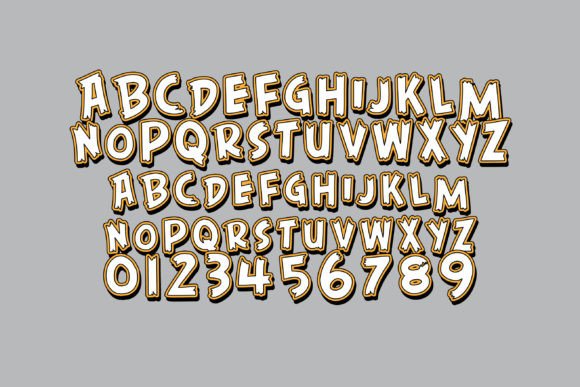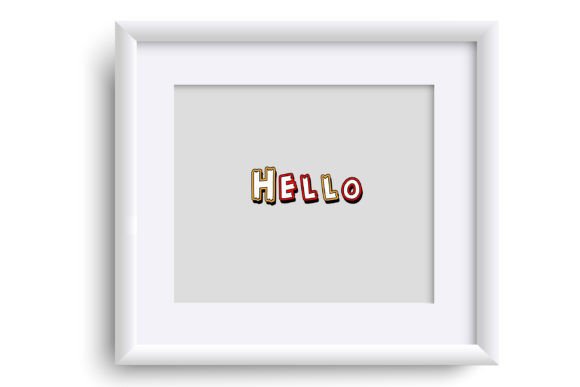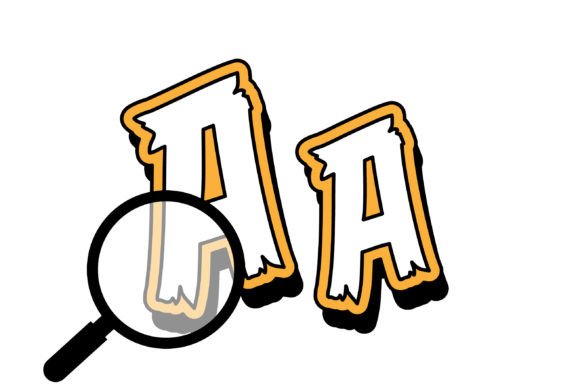
This full-color font features a wooden-like 3d lettering in an angry color palette. There is an alt case w/ additional colors you can access through your system or Silhouette’s glyph map. This font works best for titles, displays, posters and more. Please note color fonts will show as black in non compatible programs. This font type is compatible with Silhouette Studio.